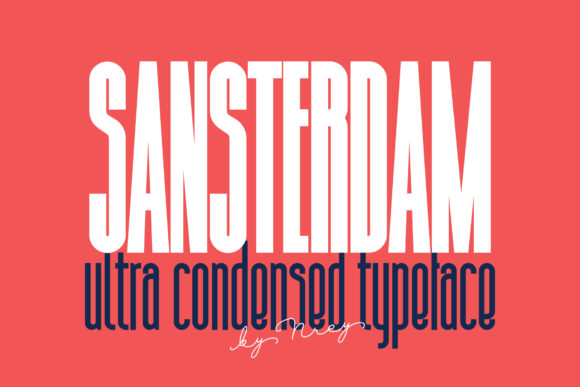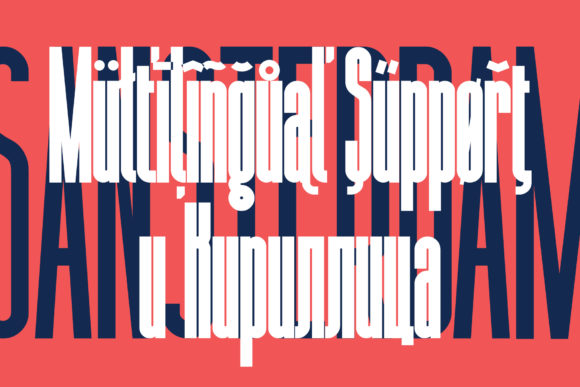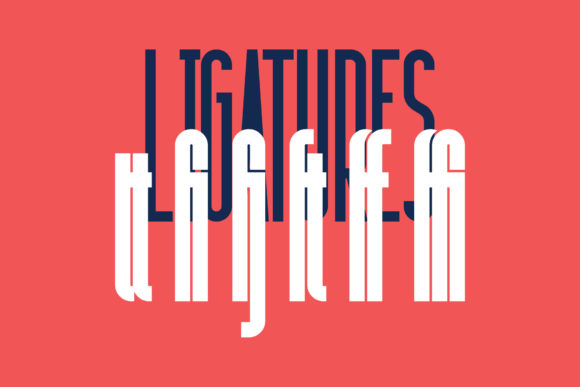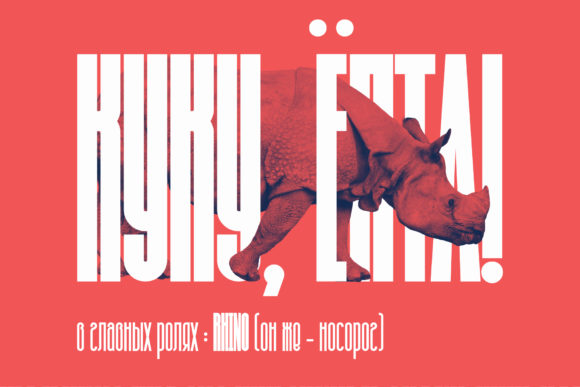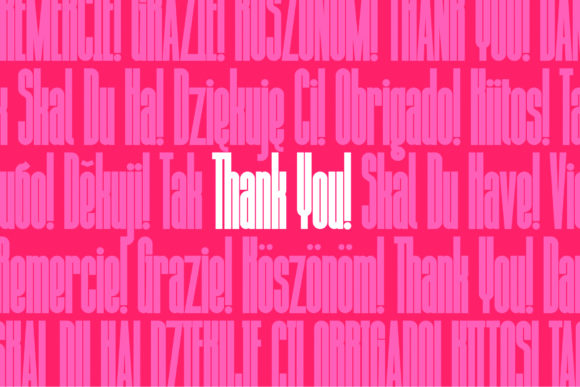
HomeSans Serif FontsSansterdam Font Sans Serif Fonts Sansterdam Font FacebookXPinterestWhatsApp Sansterdam Font 1 of 5 About Sansterdam Font Sansterdam is a unique ultra condensed font. It is great for logos, captions and branding. DOWNLOAD NOW People also explored Collabro Font Leaf Dingbat Font Gefuh Font Vinoqio Font Fusewe Font Malachite Font Golden Silver Font Timberline Anderik Font 296 0 TagsSansterdam Font Previous articleShavnaz FontNext articleLeva Rolls Font LEAVE A REPLY Cancel reply Comment: Please enter your comment! Name:* Please enter your name here Email:* You have entered an incorrect email address! Please enter your email address here Website: Save my name, email, and website in this browser for the next time I comment. Personal Use Free Silver Bullet Personal Use Free Read more about this font Handayani Personal Use Free Read more about this font Calega Personal Use Free Read more about this font Bamboomoe Personal Use Free Read more about this font BLOG Fonts That Capture the Spirit of New York City New York City is more than just a place—it’s an experience, a rhythm, a visual language... Top 7 Google Fonts Alternatives for Faster and Privacy-Friendly Web Design (2025) Top 10 Handwritten Fonts That Elevate Your Designs Exploring Font Trends